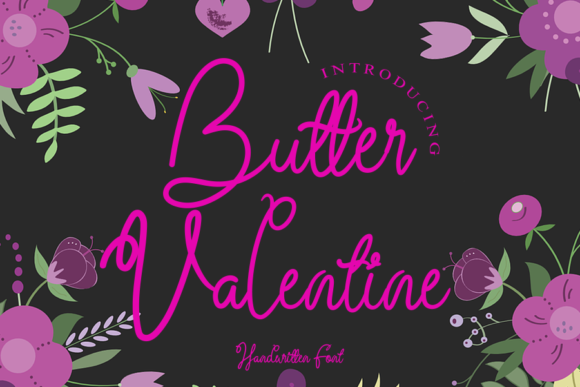
Whispers of Love: The Enchanting Butter Valentine Font
Have you ever stumbled upon a font that makes you feel like you’re walking through a lush meadow on a warm summer day, surrounded by the sweet scent of blooming flowers? That’s exactly what happens when you lay eyes on the Butter Valentine Font. This delightful typeface is the perfect blend of romance and whimsy, making it a go-to choice for designers who want to add a touch of magic to their creations.
Whether you’re designing wedding invitations, thank you cards, or logos, the Butter Valentine Font is sure to bring a smile to your face. Its versatility and customized touch make it a valuable asset for designers who want to stand out from the crowd. With its soft, delicate curves and playful charm, this font is the perfect tool for adding a little extra love to your designs.
Key Features of Butter Valentine Font
- Font Style: A modern, elegant script font with a touch of romance.
- Character Set: Includes a wide range of characters, including uppercase and lowercase letters, numbers, and punctuation marks.
- Unique Characteristics: Features a unique, flowing design with subtle connections between letters, creating a romantic and whimsical feel.
Butter Valentine Font Review
At first glance, the Butter Valentine Font is an intriguing choice for any design project. Its vintage aesthetic and playful vibe ✨ are sure to catch the eye of anyone looking for a unique font to add some whimsy to their design.
The font’s most notable feature is its ability to evoke a sense of nostalgia and romance, making it perfect for Valentine’s Day or any other occasion that requires a touch of warmth and sentimentality.
- The font’s playful and whimsical feel ✨
- Its ability to evoke a sense of nostalgia and romance
- Perfect for Valentine’s Day or other occasions that require a touch of warmth and sentimentality
- The font may not be suitable for formal or professional projects due to its playful nature ⚠️
- It may not be as legible in certain font sizes or at a distance, which could affect readability ⚠️
Overall, the Butter Valentine Font is a fun and unique addition to any design project. While it may have its limitations, it’s perfect for projects that require a touch of whimsy and romance. Just be sure to use it in moderation and consider the context in which it will be used.
The Butter Valentine font is ideal for creating a vintage or retro aesthetic in your designs. Some common use cases include:
- Retro-themed advertising and marketing materials.
- Vintage-inspired social media graphics and posts.